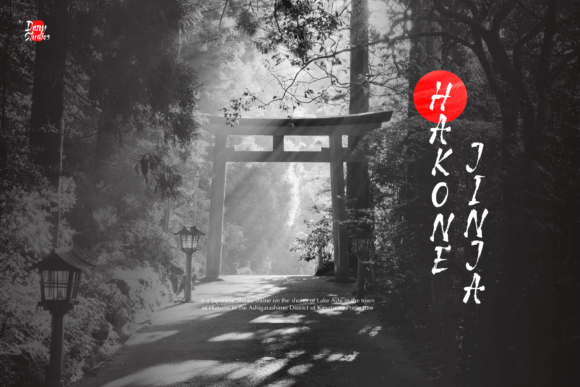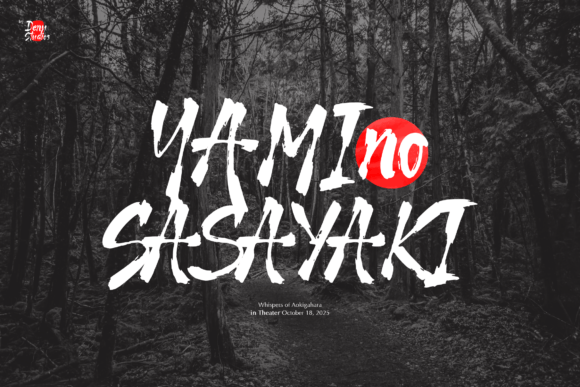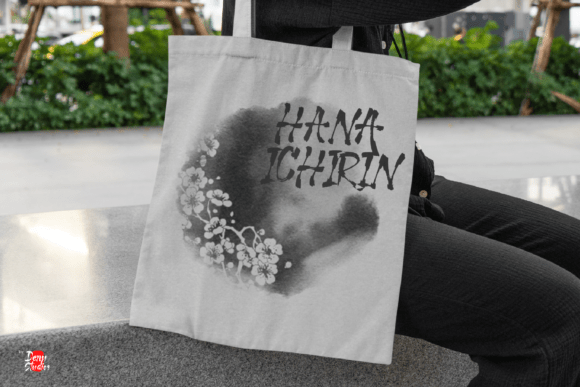
Introduction to Shinkai Ink Font
Shinkai Ink is a Japanese solid brush font, suitable for any projects such as: logos, branding projects, homeware designs, product packaging, mugs, quotes, posters, shopping bags, t-shirts, book covers, name card, invitation cards, greeting cards, label, photography, watermark, special events, and all your other lovely projects that need a Japanese Solid Brush taste.
Shinkai Ink is a Japanese solid brush font, suitable for any projects such as: logos, branding projects, homeware designs, product packaging, mugs, quotes, posters, shopping bags, t-shirts, book cover
Key Features of Shinkai Ink Font
Why Choose Shinkai Ink Font?
Shinkai Ink Font offers exceptional quality and versatility, making it a valuable addition to your design toolkit. Whether you’re creating for personal projects or commercial use, Shinkai Ink Font delivers professional results.